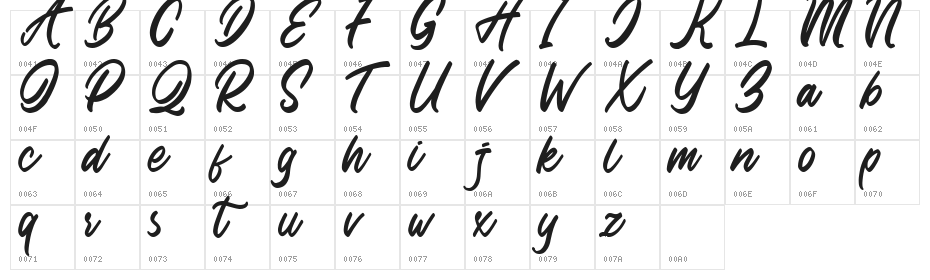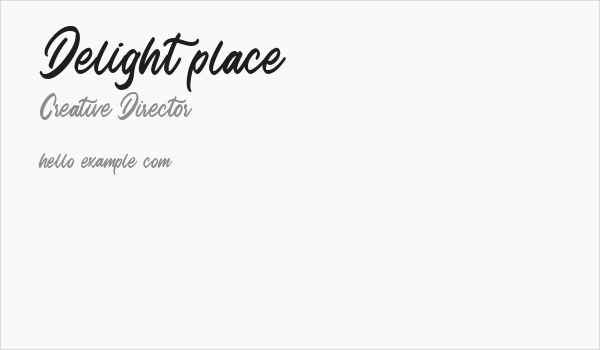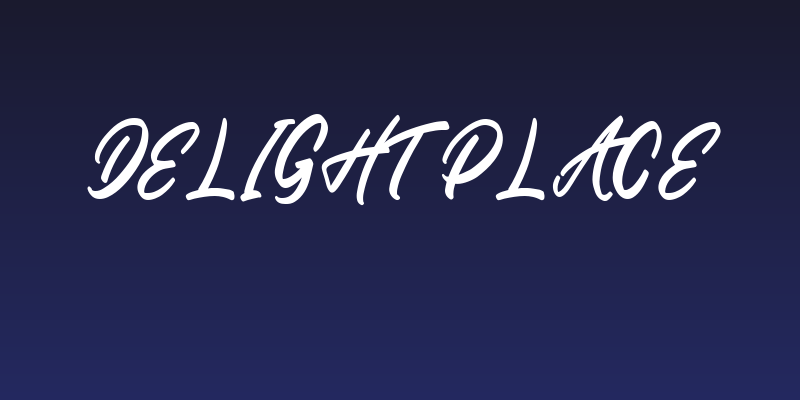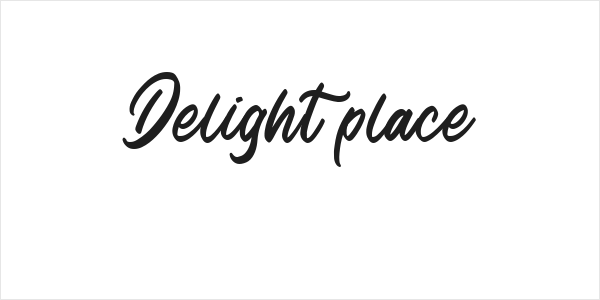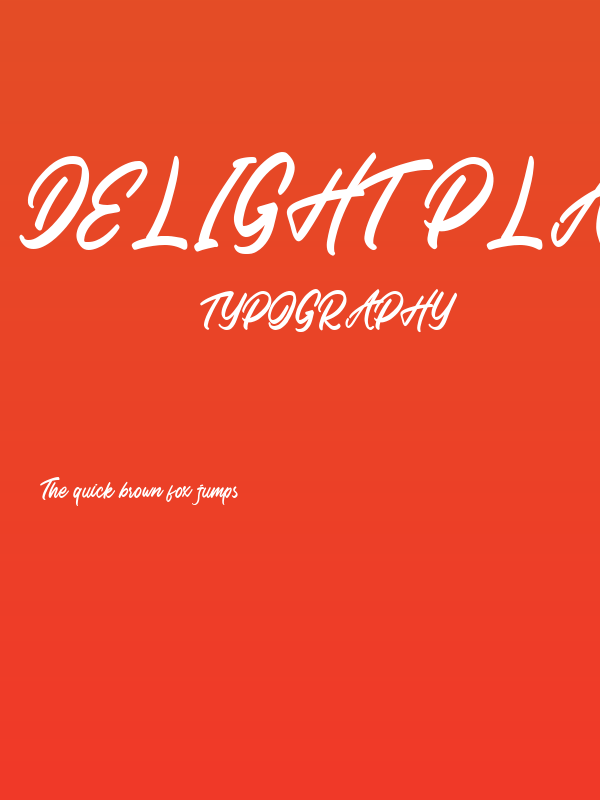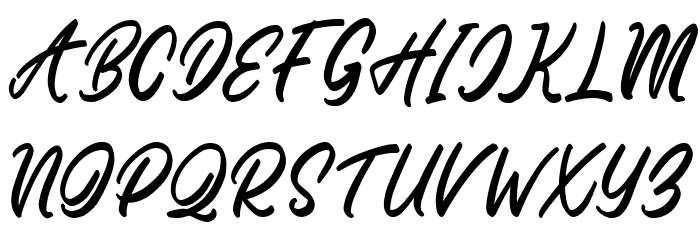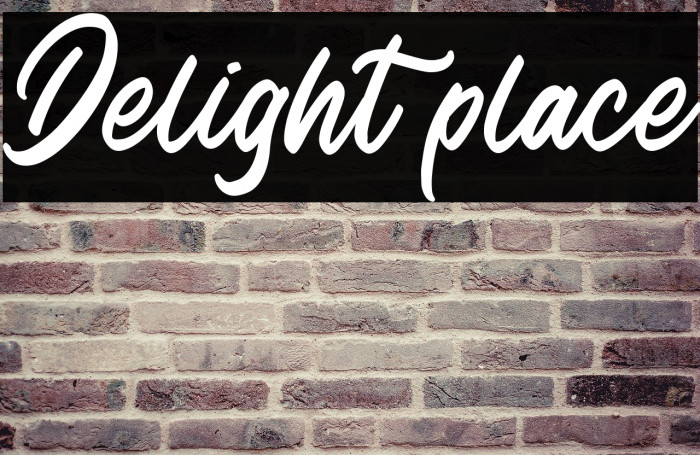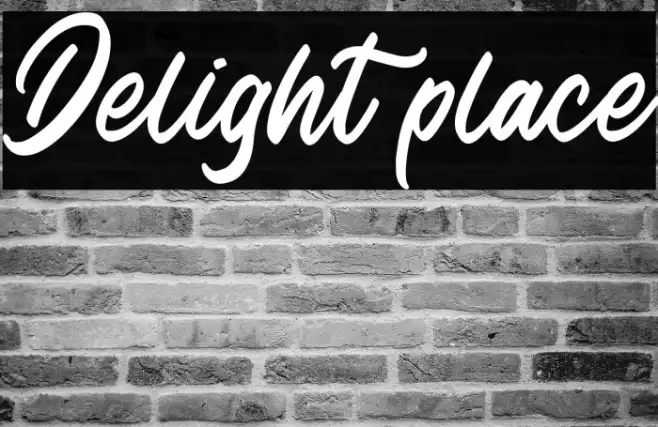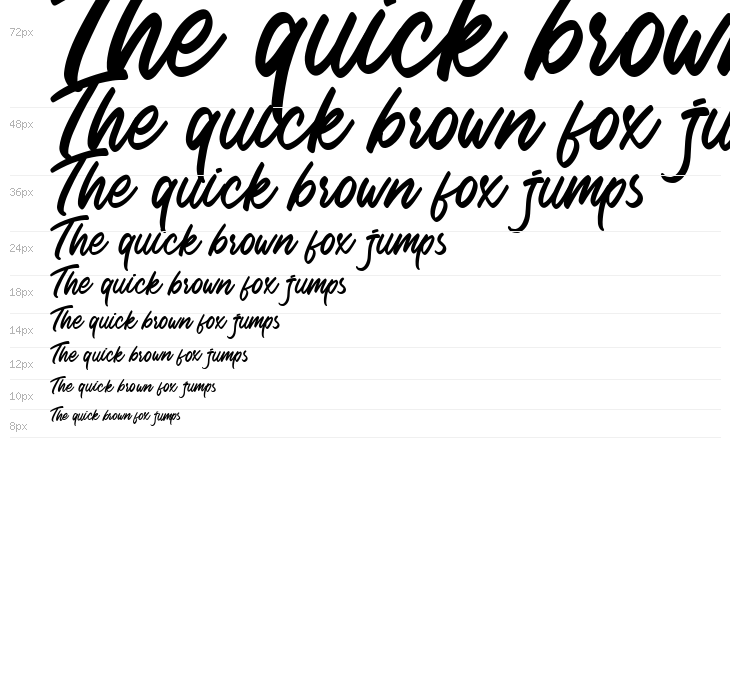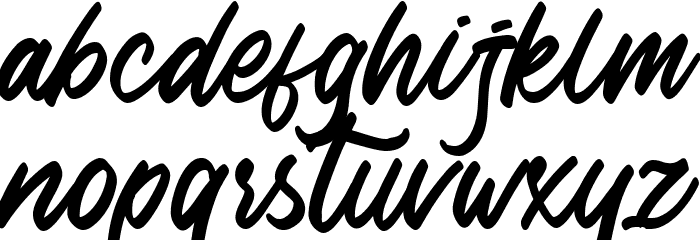
Delight place Font
Delight place Description
This font features a bold, cursive style with a dynamic and flowing appearance. The characters are interconnected, creating a sense of movement and elegance. The uppercase letters are slightly larger and more pronounced, while the lowercase letters maintain a consistent flow. The strokes are thick and rounded, giving the font a friendly and approachable feel. The overall design is reminiscent of traditional calligraphy but with a modern twist, making it suitable for various creative applications.